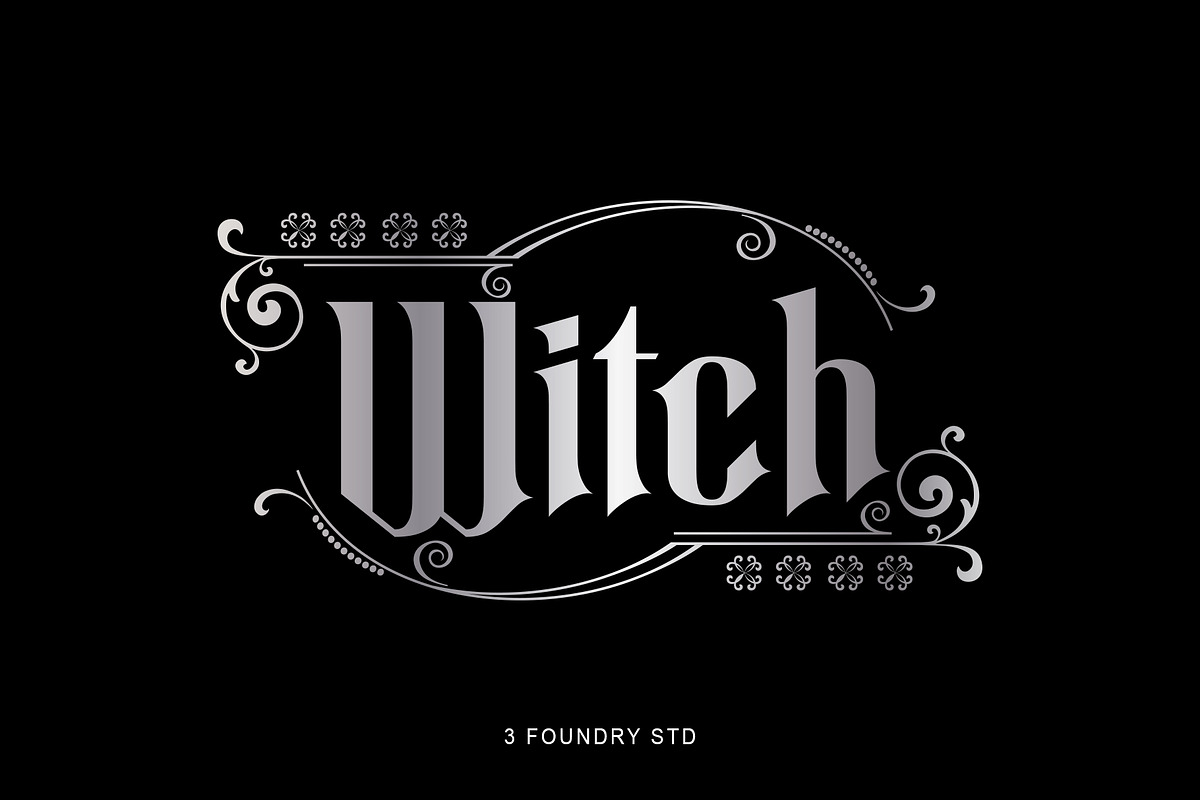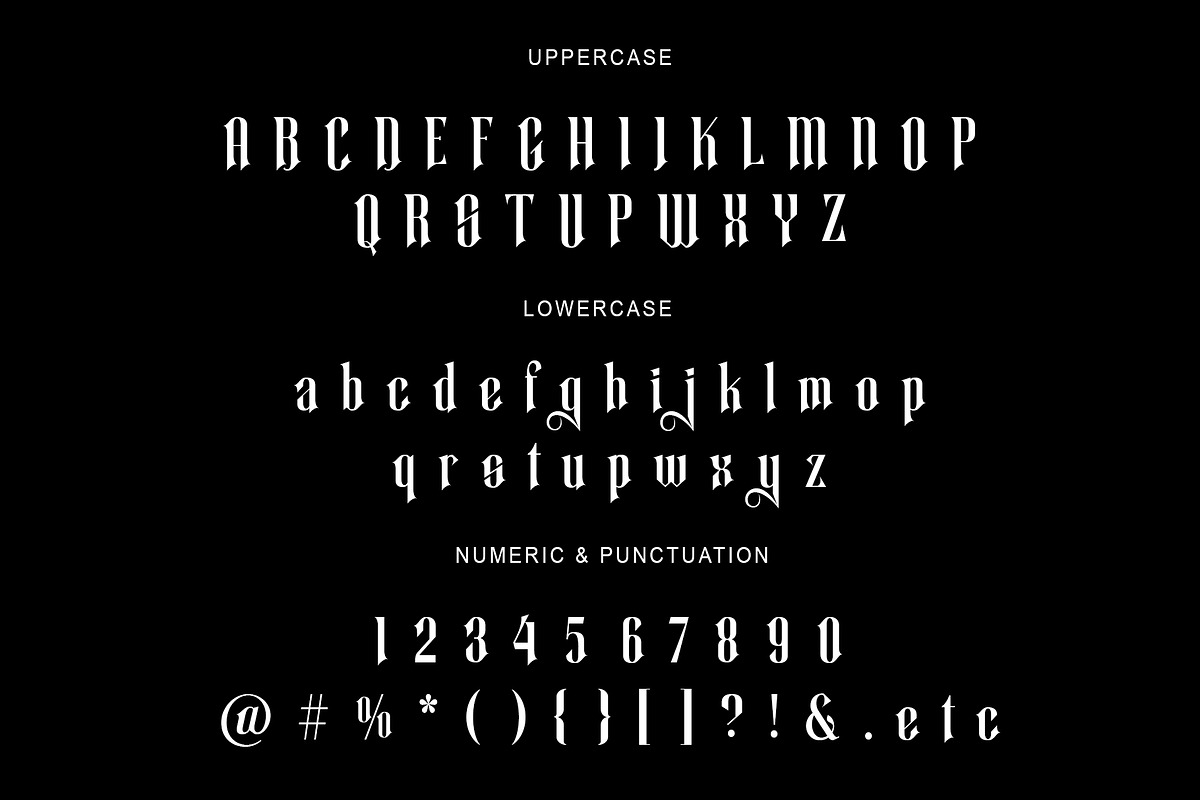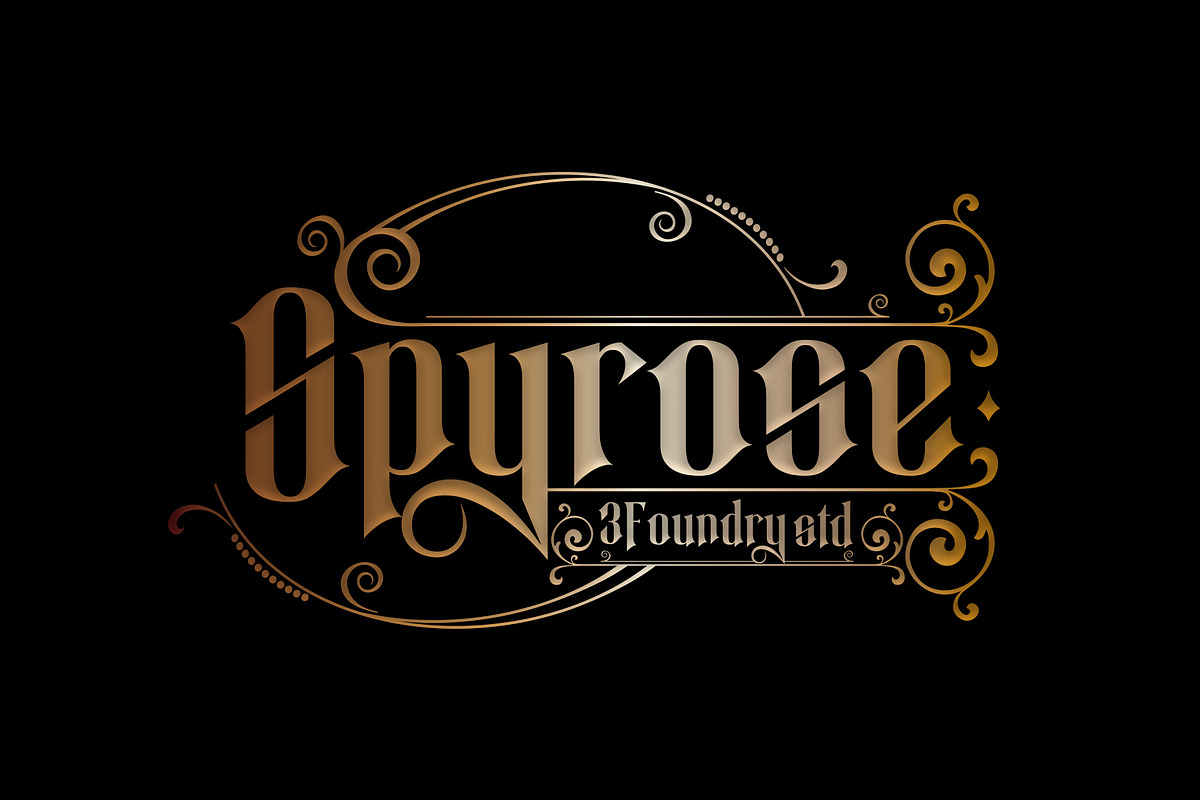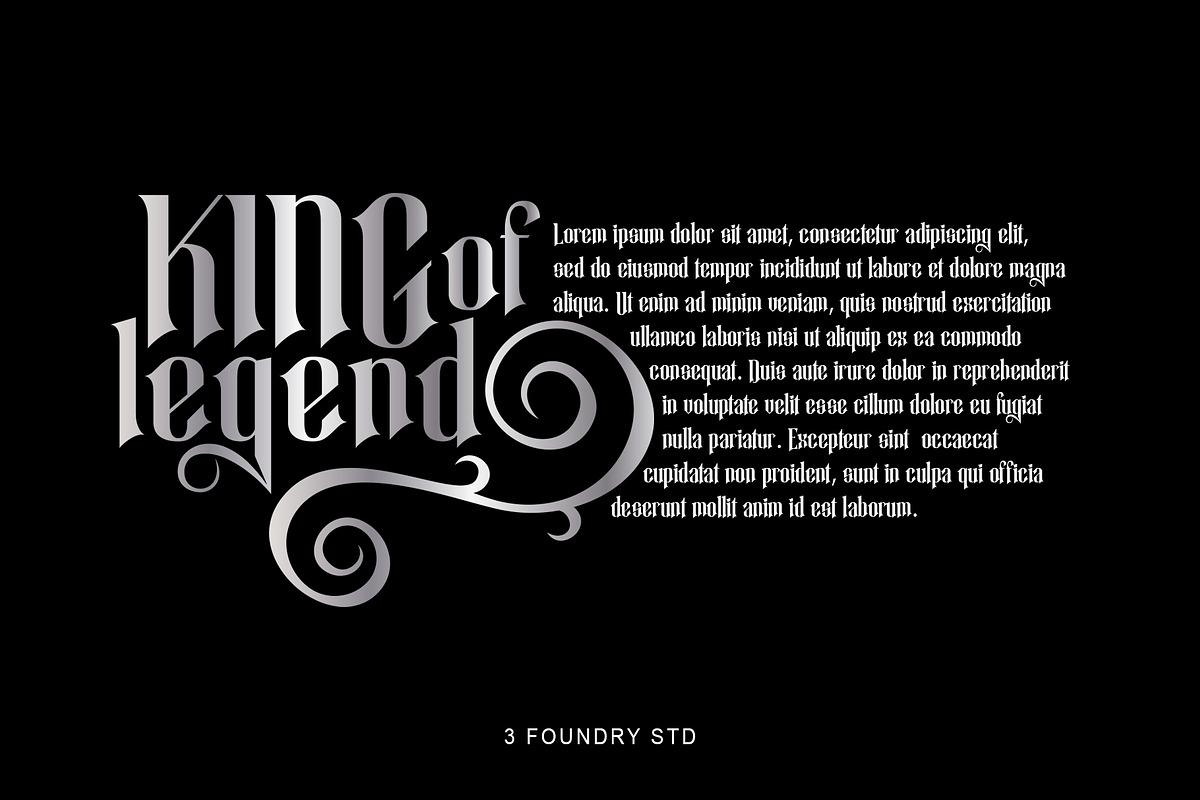
Spyrose
Hello, On this occasion we would like to introduce a new product, with the name "Spyrose", this font has a gothic style with a touch of blackletter. will be very suitable to complement your work.
- Numeral
- Functional